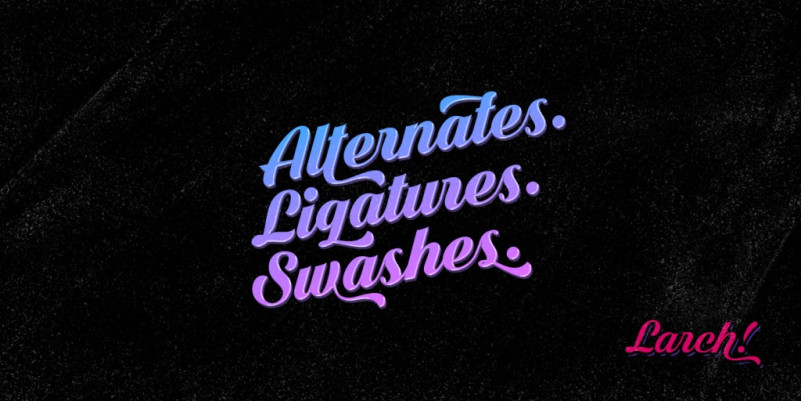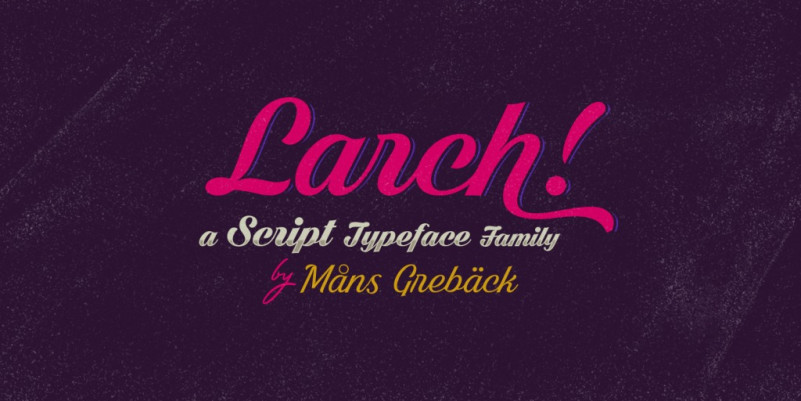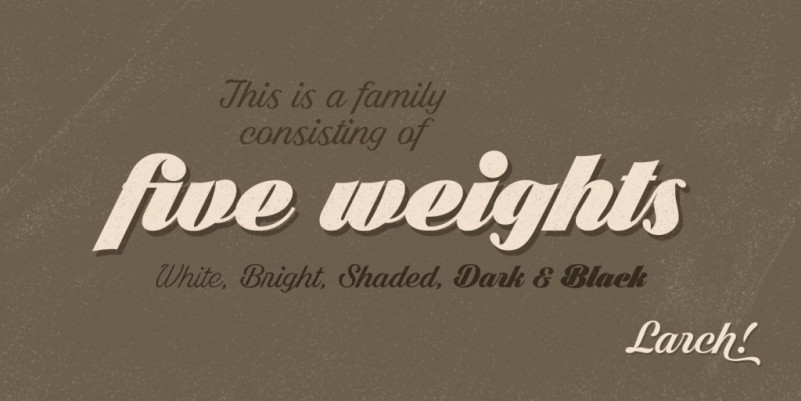
Dark Larch Font
Dark Larch Retro Font, This font is perfect for stickers, retro projects, craft projects, shirts, svg designs, procreate designs, branding, blogs, logos, invitations and more!